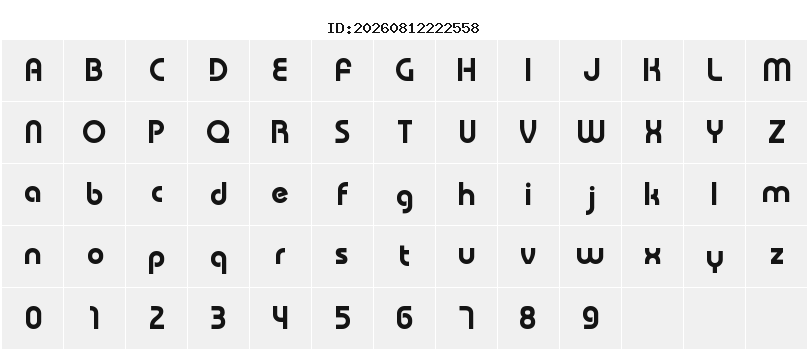
Retrahaus Preview
• Font Name: Retrahaus
• Designer: Daniel
About Retrahaus.ttf
Retrahaus.ttf is a modern, elegant sans-serif font designed for ultimate readability and visual harmony. Perfect for branding, headlines, web design, and print materials.